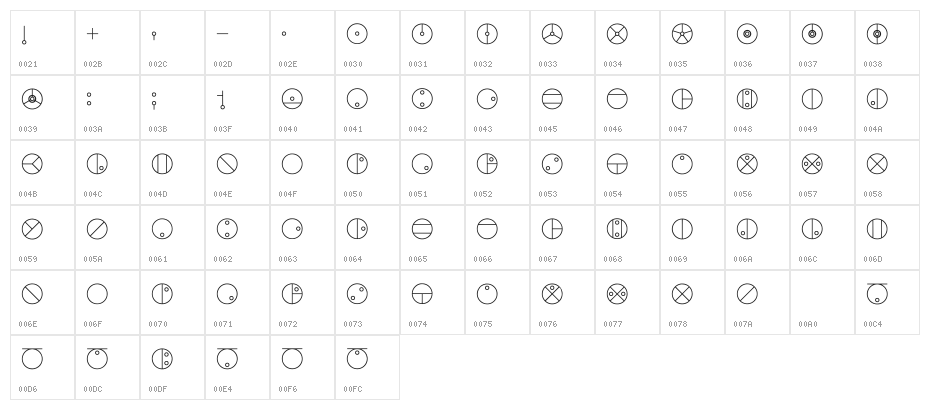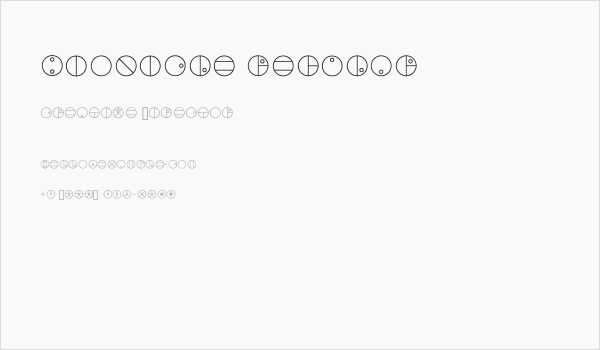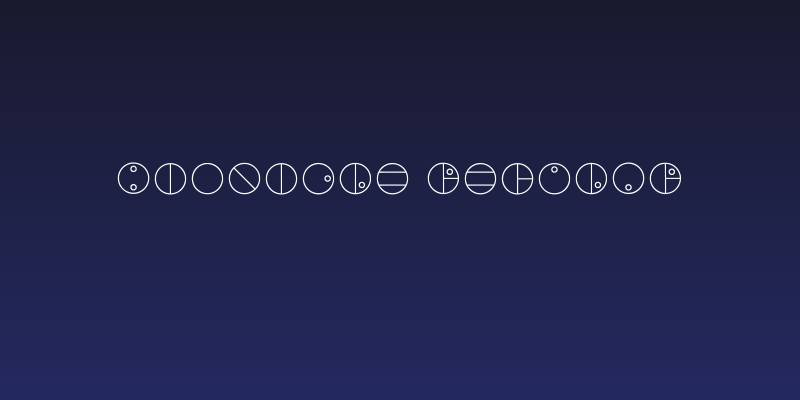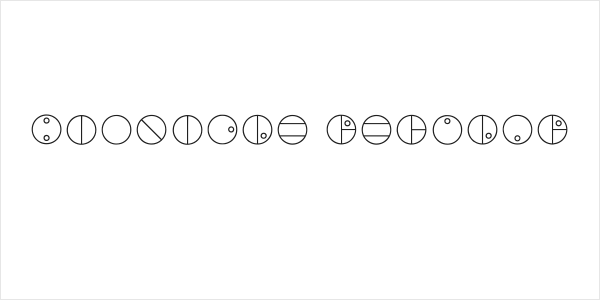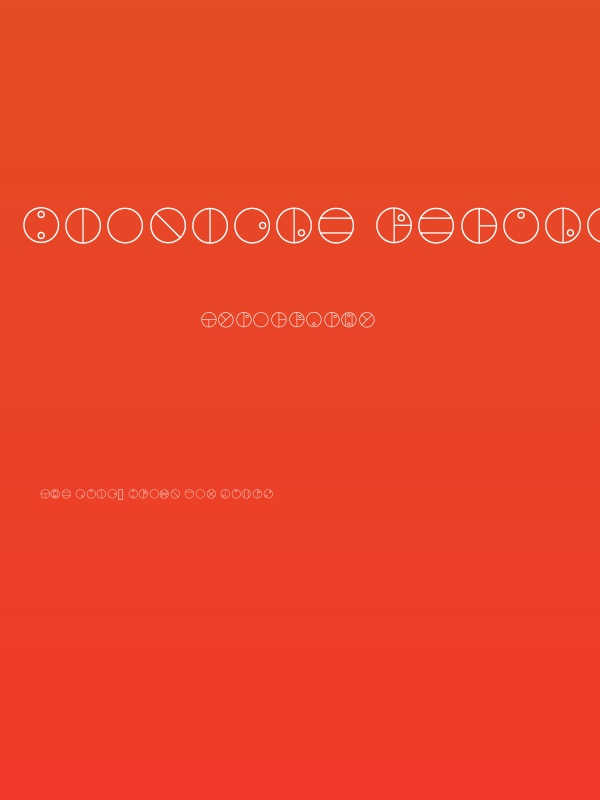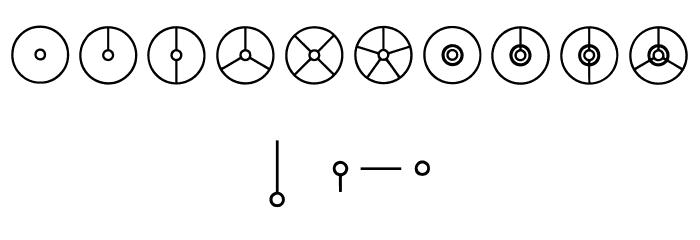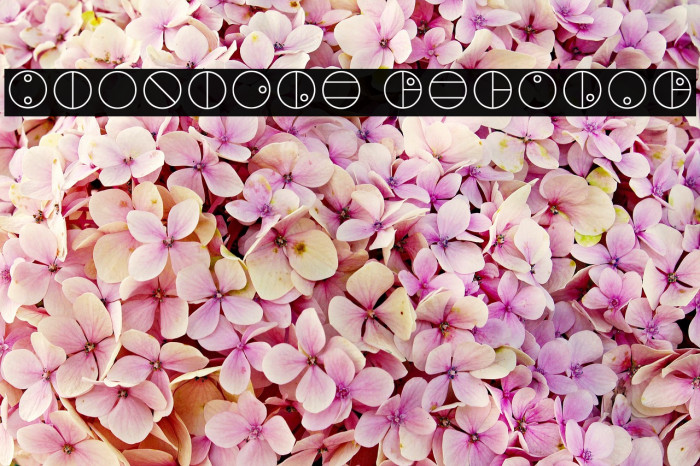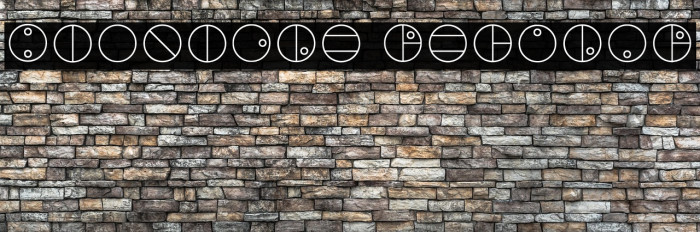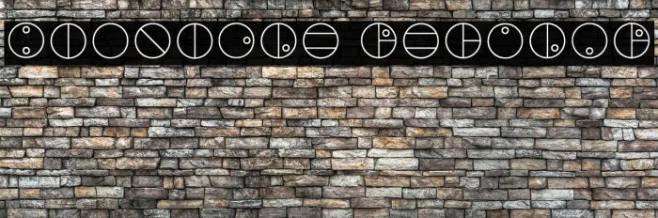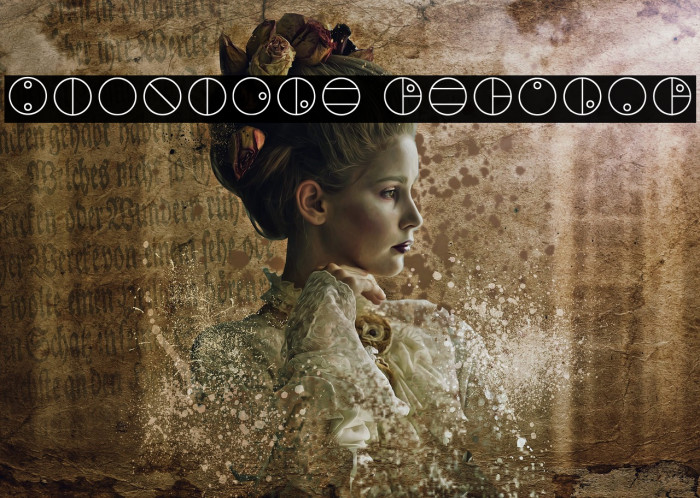
Bionicle Regular Font
Bionicle Regular Description
This font features a unique, circular design where each character is enclosed within a circle. The characters are distinguished by various geometric patterns and lines, creating a futuristic and abstract appearance. The design is minimalistic yet intricate, with each letter and symbol having a distinct arrangement of lines and dots. This style evokes a sense of mystery and modernity, making it suitable for creative and unconventional projects. The uniformity of the circular shapes provides a cohesive look, while the internal variations offer visual interest.
| Overall Style | Futuristic, Abstract |
| Use Case | Logos, Posters, Creative projects |
| Proposed Projects | Ideal for sci-fi themed designs, video game interfaces, futuristic branding, and creative posters. |